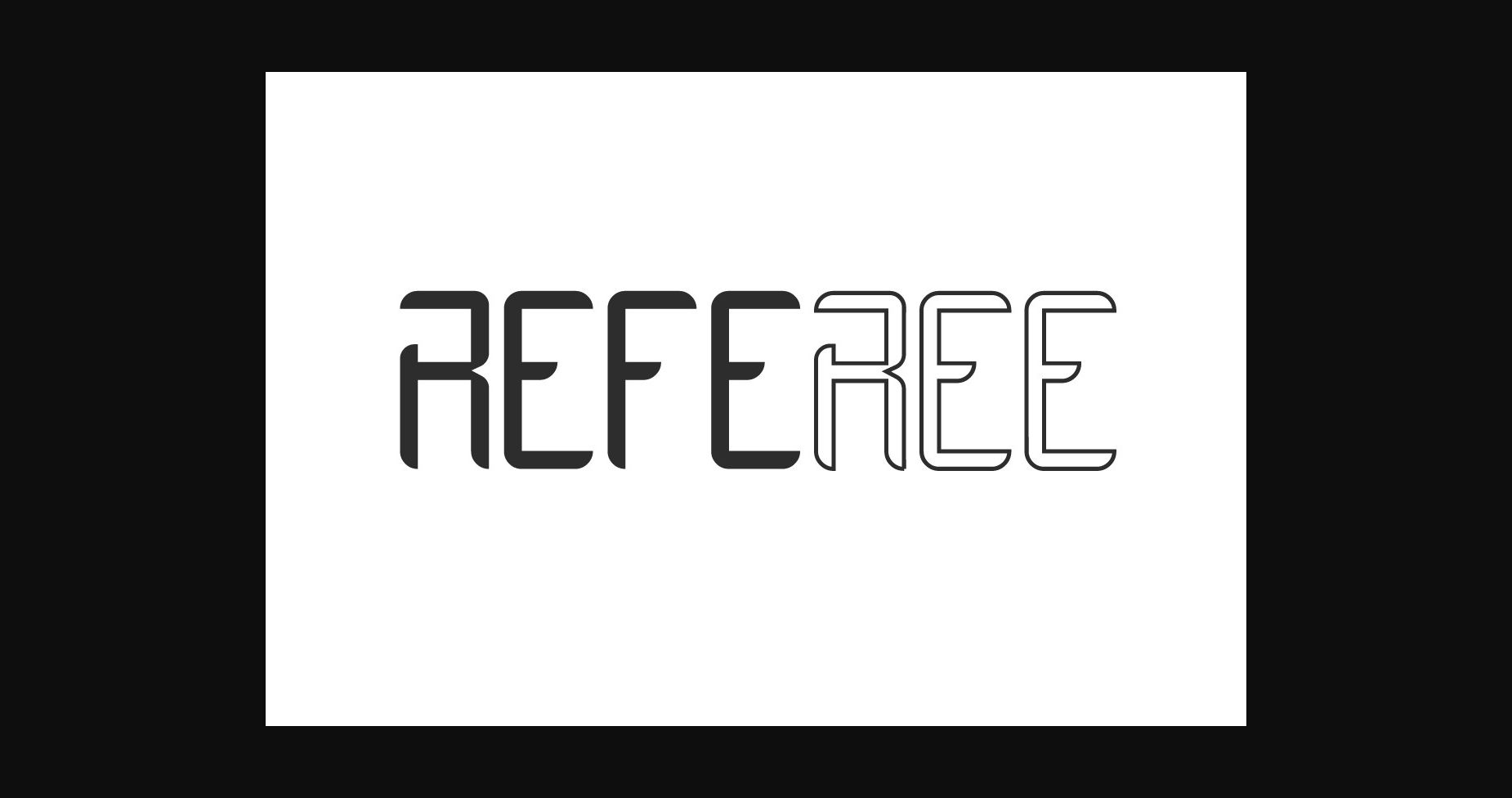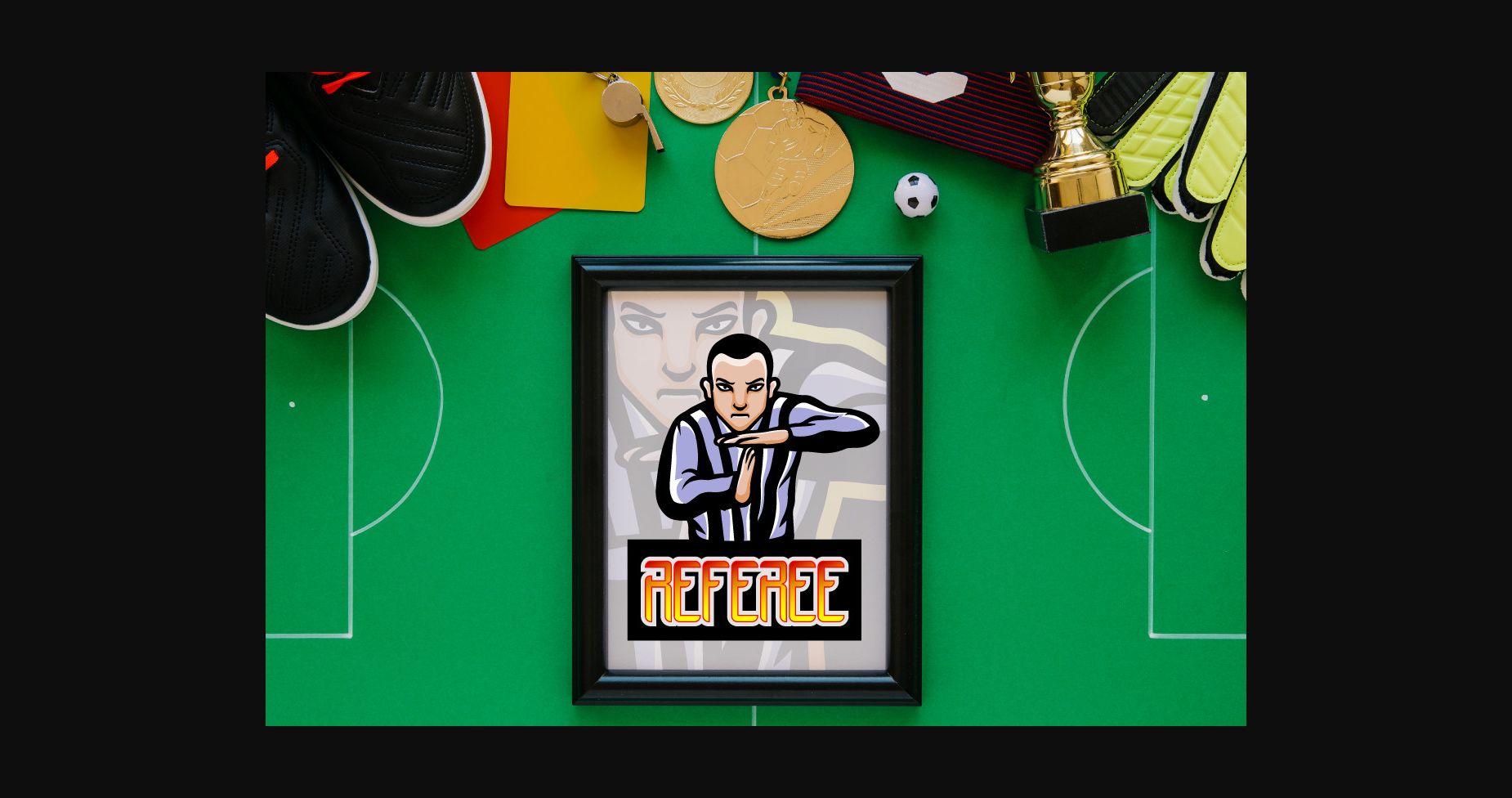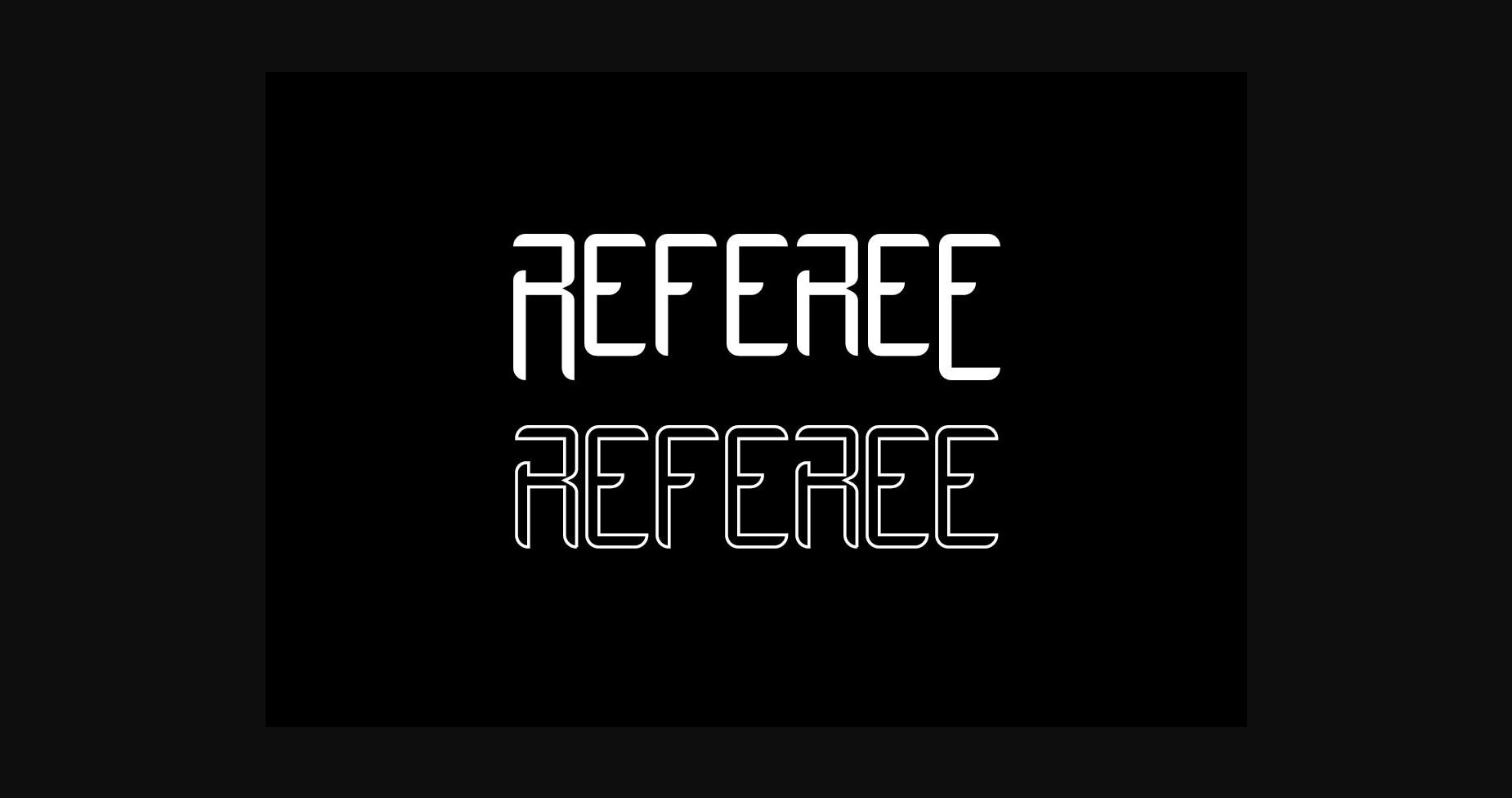
About Referee Font
Referee Font comes with two style options: Regular and Outlined. Referee Font will be great for any projects, including branding, logo, stationery, business card, signage, flyer, or brochure. It will be great for many business industries: games, sport, restaurants, café, music, automotive, and movie.